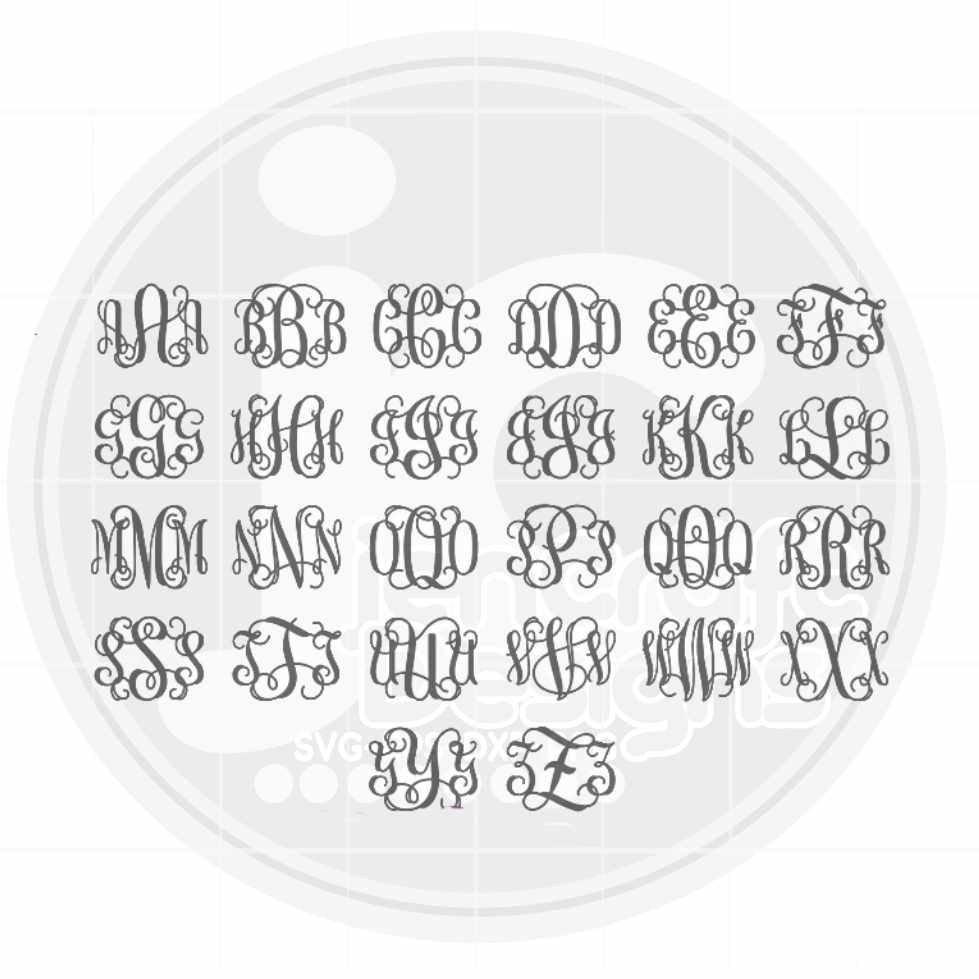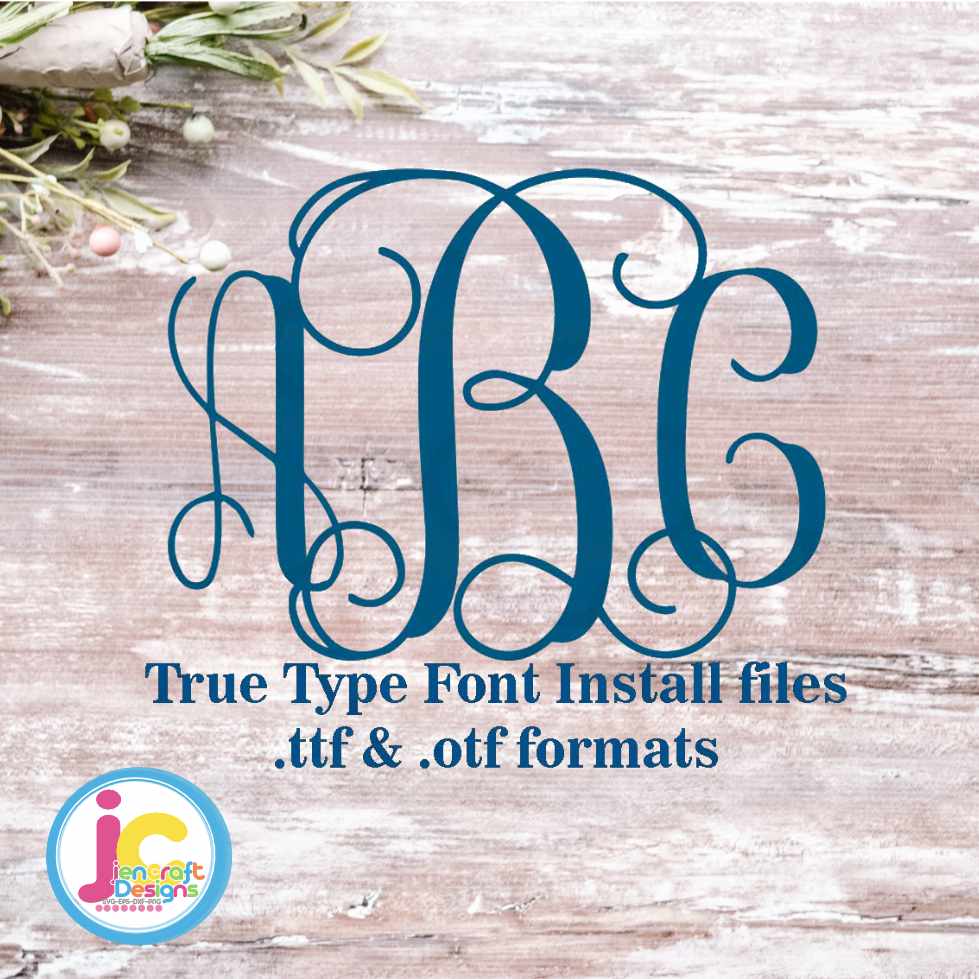
Interlocking Monogram Font | .TTF & .OTF Installable Font
Create stunning interlocking monograms effortlessly! Simply install this Interlocking Monogram Font on your computer and type out your letters — no more uploading individual letter files into your cutting software. Works with Cricut, Silhouette, Adobe, and more. Instant digital download!
- Type lowercase for the outside letters and UPPERCASE for the center letter to achieve the classic monogram look